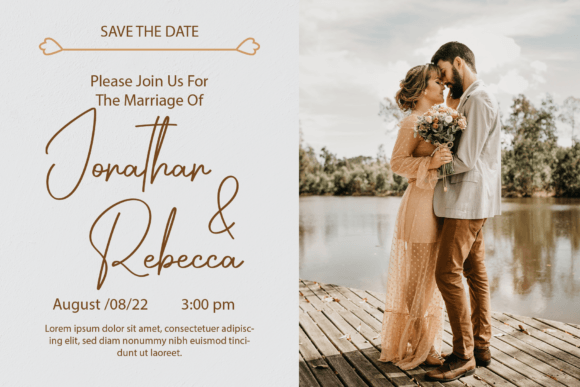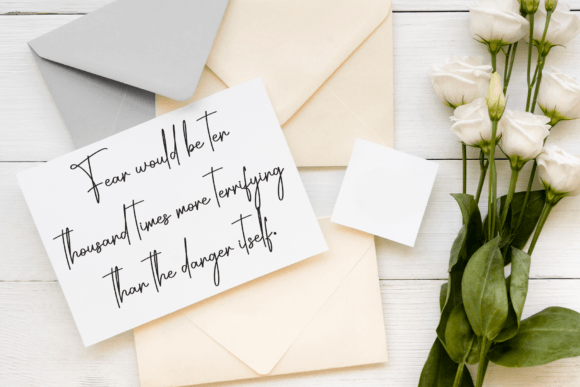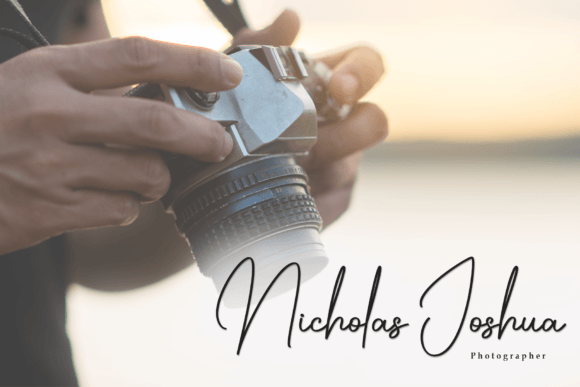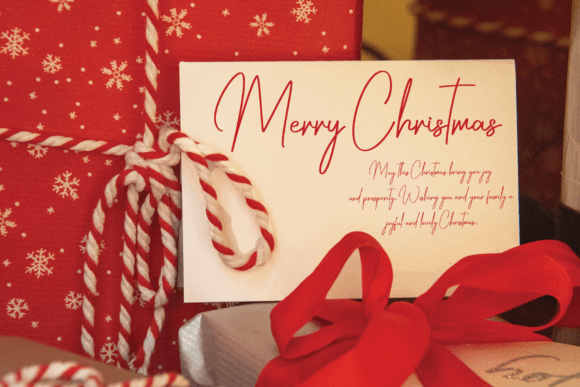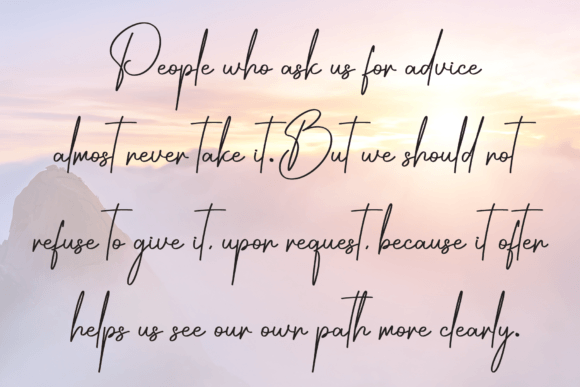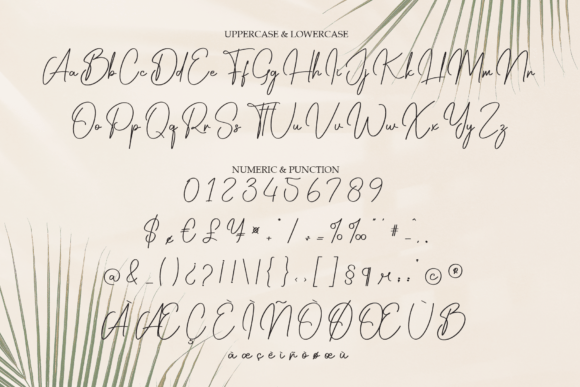
Introduction to September Signature Font
Have you ever found yourself sitting at your desk, staring at a blank sheet of paper, trying to come up with the perfect font for your next creative project? It’s a moment we’ve all been in, searching for that perfect balance of style and readability. For designers, this search can be a daunting task, especially when working on high-quality projects that require a specific aesthetic.
That’s where the September Signature Font comes in – a beautiful, easy-to-read signature font that’s perfect for any creative project. With its simple yet elegant design, it’s no wonder this font has become a go-to resource for designers looking for a high-quality, free download.
Whether you’re working on a wedding invitation, a photography project, or simply a social media post, the September Signature Font is sure to add a touch of elegance and sophistication to your design. And with its transparent background, you can easily overlay it on top of your images or use it as a standalone element – the possibilities are endless!
Key Features of September Signature Font
- High-quality design resource perfect for creative projects, offering a unique and stylish touch.
- Designed to be versatile, making it suitable for a wide range of creative projects, from business cards to social media graphics.
- Features a modern and elegant design aesthetic, setting it apart from other fonts in its class.
Honest Review: September Signature Font
As a designer, I’m always on the lookout for high-quality design resources to enhance my creative projects. Recently, I came across the September Signature Font, and I’m excited to share my honest review with you.
- ✨ Unique and elegant design aesthetic that adds a touch of sophistication to any project
- ✨ Highly legible and clear font, making it perfect for body text and headings
- ✨ Transparent background, allowing for easy customization and blending with other design elements
- ⚠️ Limited character set, which may not be suitable for longer texts or documents
- ⚠️ May not be as versatile as other fonts, making it less suitable for certain design styles
Overall, I’m impressed with the September Signature Font. Its unique design and high-quality feel make it a great addition to any designer’s toolkit. While it may have some limitations, I believe it’s a valuable resource for designers working on creative projects.
Tips for Getting the Most Out of the September Signature Font
For the best results, use the September Signature Font on a transparent background to make it stand out. You can also pair it with other fonts to create a unique design. Experiment with different colors and sizes to find the perfect look for your creative project.
The September Signature Font is perfect for:
Creating social media graphics and posts.
Designing presentations and reports.
Developing branding materials and logos.
Adding a touch of elegance to your creative projects.
Alternatives to September Signature Font
Alex Brush Font is a high-quality, elegant script font ideal for creative projects that require a touch of sophistication. It features a transparent background, making it perfect for overlaying on images. This font is suitable for wedding invitations, branding, and other design elements that demand a sense of luxury.
Compared to September Signature Font, Alex Brush Font has a more refined and polished look, making it a great choice for high-end design projects. However, it may not be as versatile as September Signature Font in terms of font sizes and styles.
Is the September Signature Font a high-quality design resource?
Yes, the September Signature Font is a high-quality design resource, carefully crafted to provide a unique and elegant touch to your creative project. Its clean and sophisticated design makes it an excellent choice for any design project, from branding and marketing materials to digital products and publications.